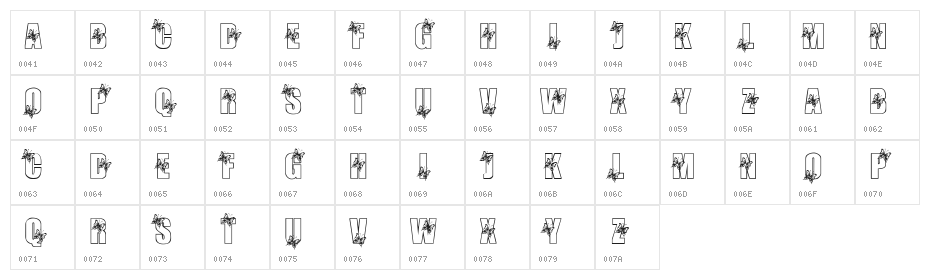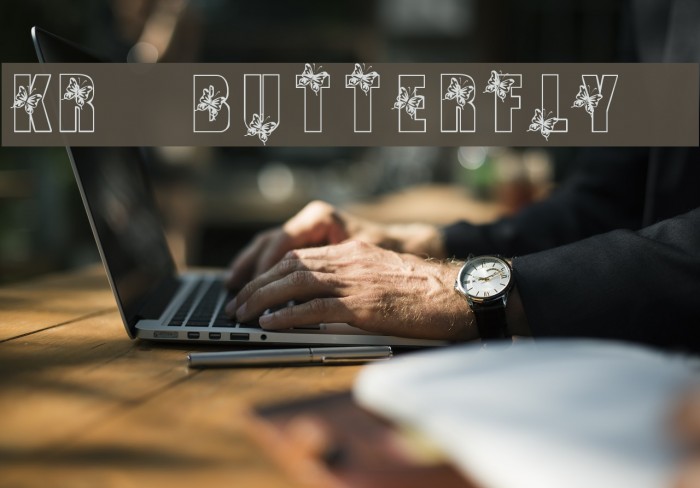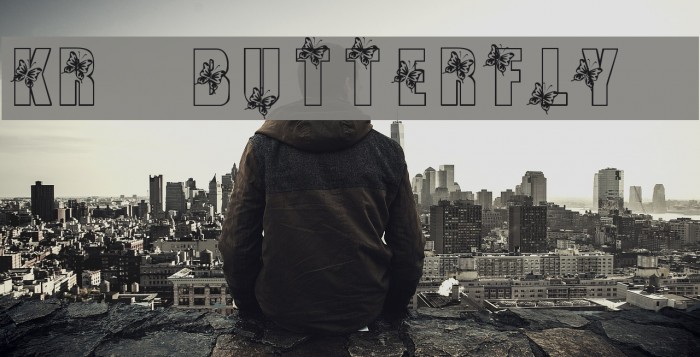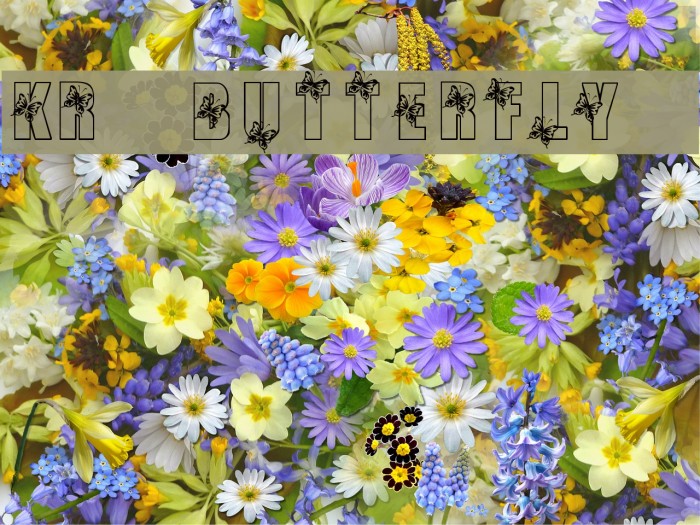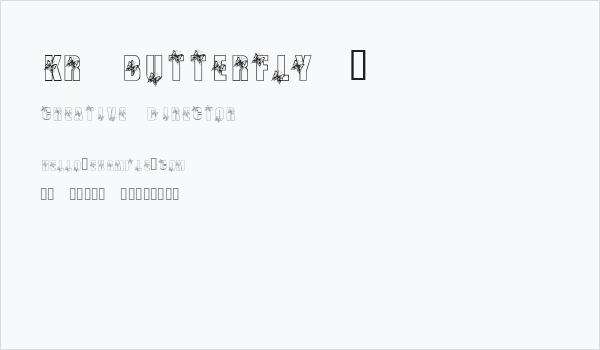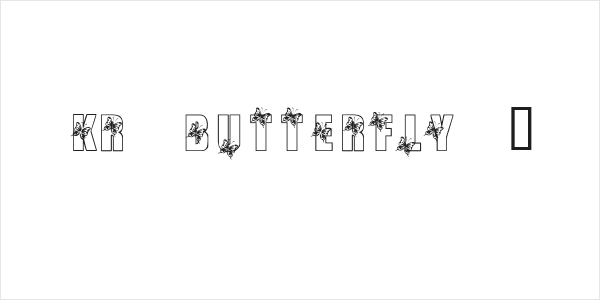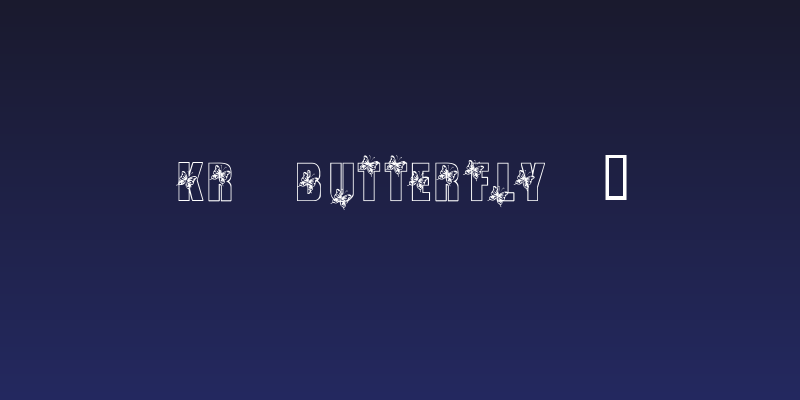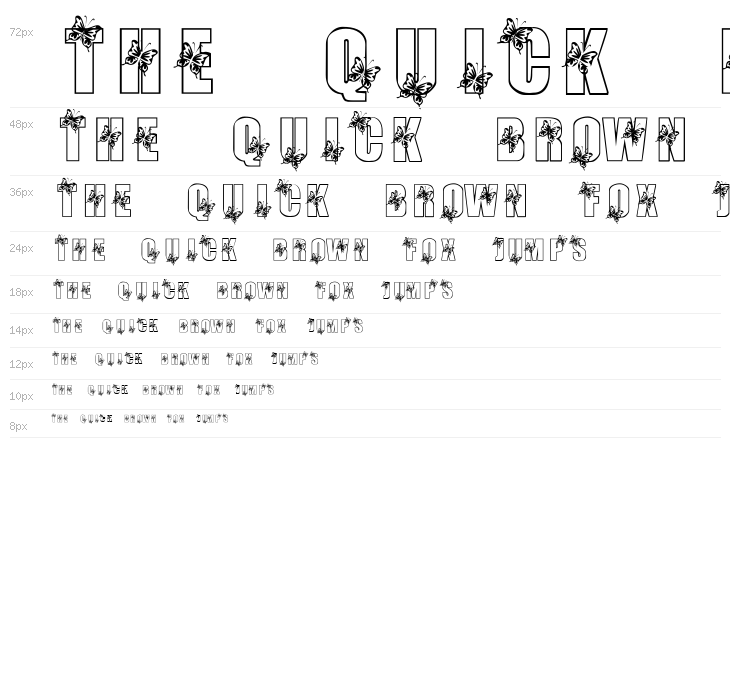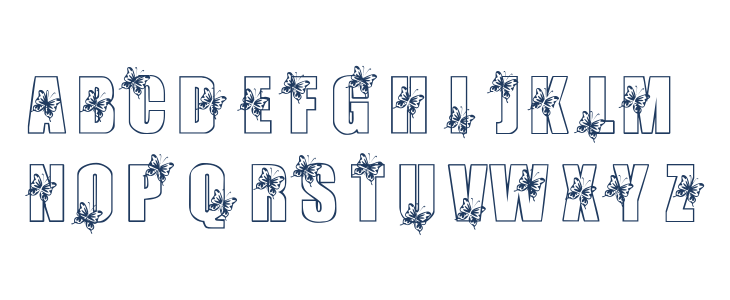
KR Butterfly 3 Font
KR Butterfly 3 Description
This decorative font features uppercase letters adorned with intricate butterfly illustrations. Each character is outlined, providing a bold and eye-catching appearance. The butterflies are integrated into the design, adding a whimsical and artistic touch. The font is ideal for creative projects that require a unique and playful style. The overall design is balanced, with each letter maintaining its legibility despite the decorative elements. The font's distinct style makes it suitable for headlines, posters, and other display purposes where a touch of elegance and creativity is desired.